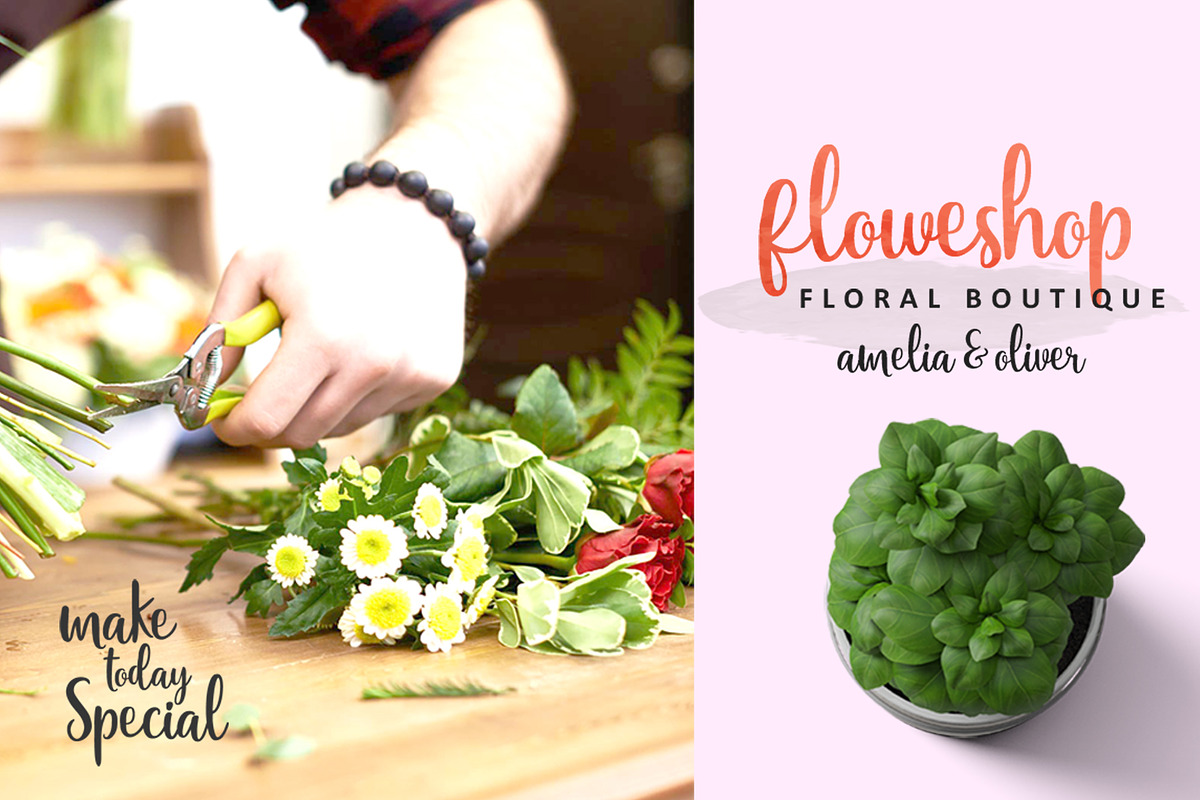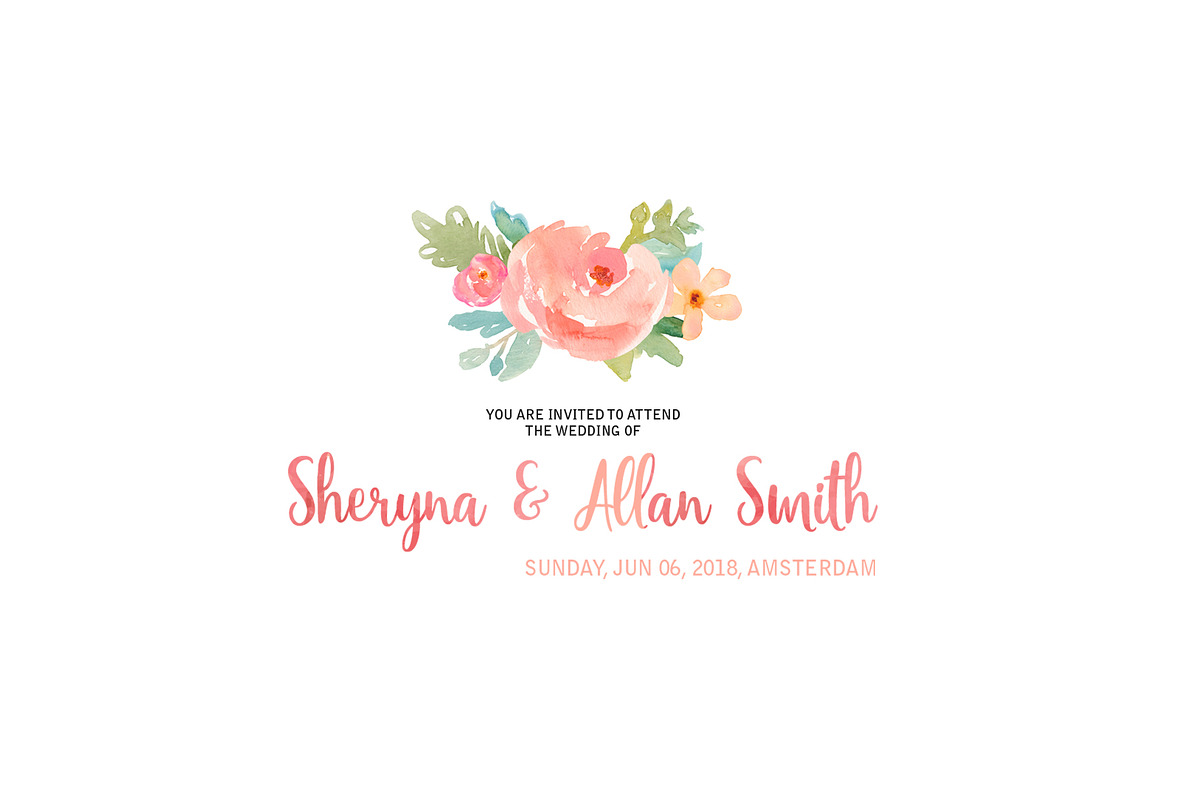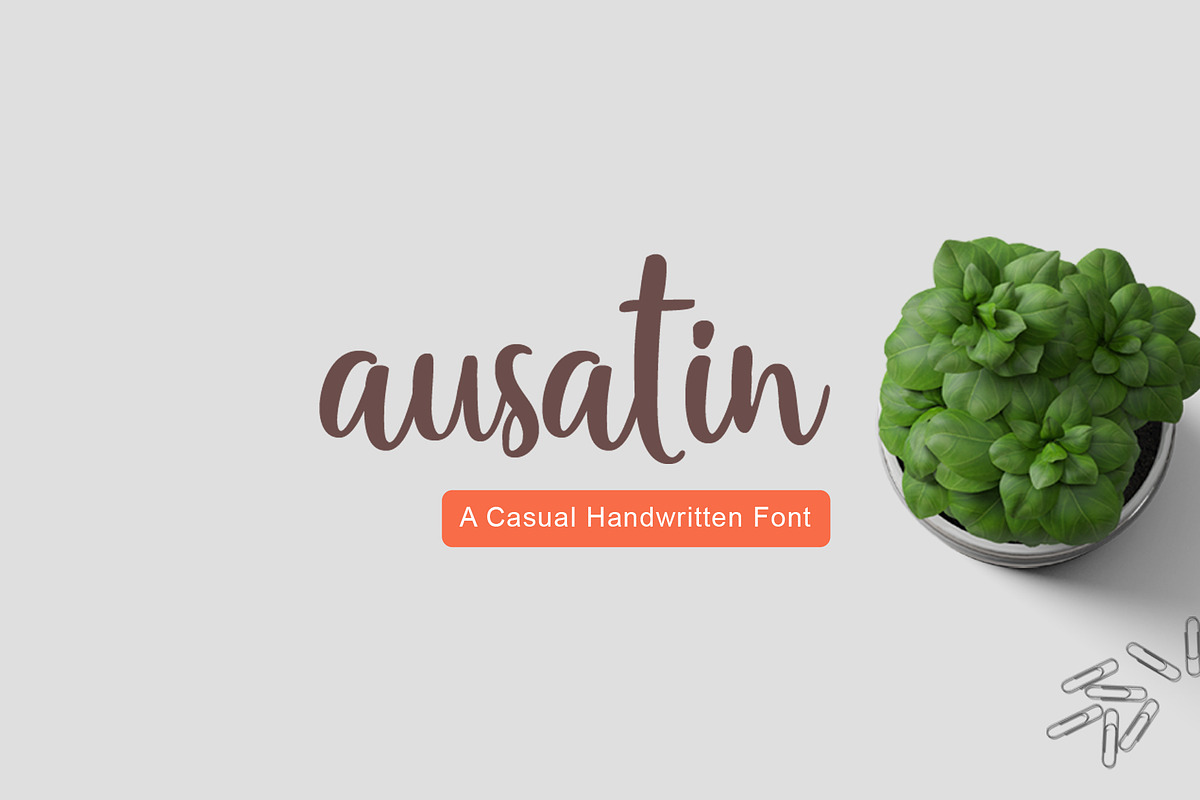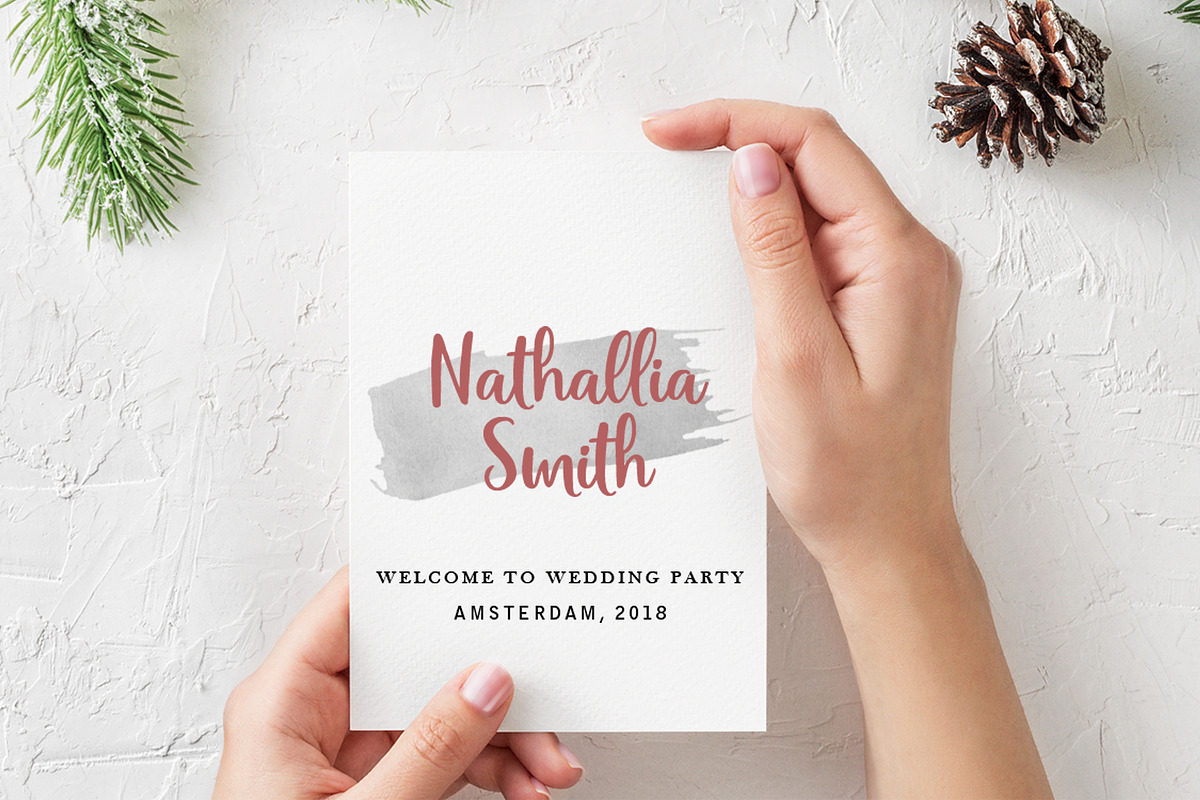
Ausatin Handmade Font
A new modern script with a handmade calligraphy style. Great for branding materials, greeting cards, business cards, posters, quotes, etc. Open Type features can be accessed by using Open Type savvy programs such as Adobe Illustrator, Adobe InDesign, Adobe Photoshop Corel Draw X version, And Microsoft Word.
Why Ausatin Handmade Font is worth a look
Ausatin Handmade Font by graphiccrew fits naturally into Branding, posters, packaging, typography.